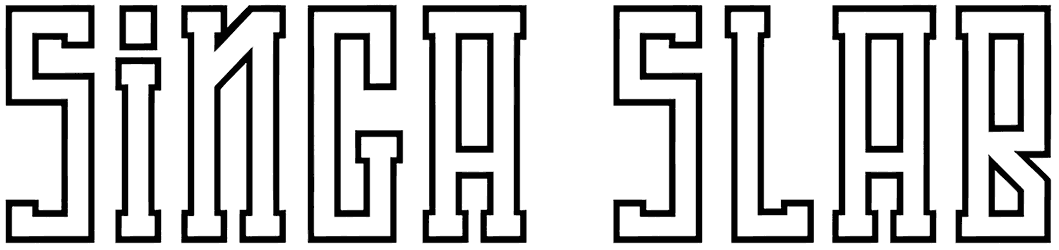
Singa Slab Font
Make your text stand out with a retro and special outward and get more positive feedback. This slab serif font, which is called Singa Slab, has a salient and memorable letter face that is able to convey a vintage vibe. Singa Slab doesn’t support lowercase letters, but it would be enough to illustrate your layouts from movie posters to album covers with a memorable mood.